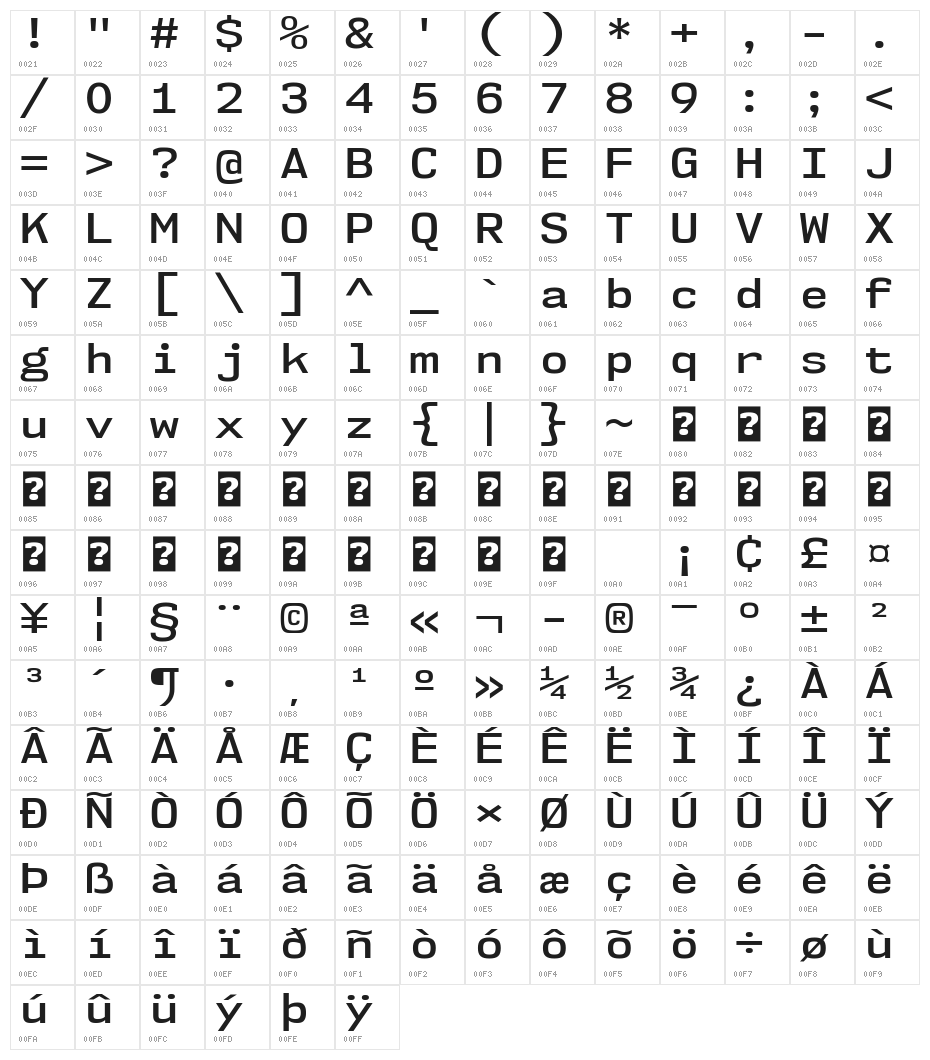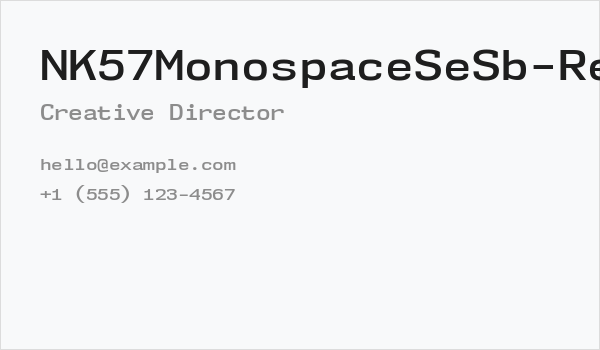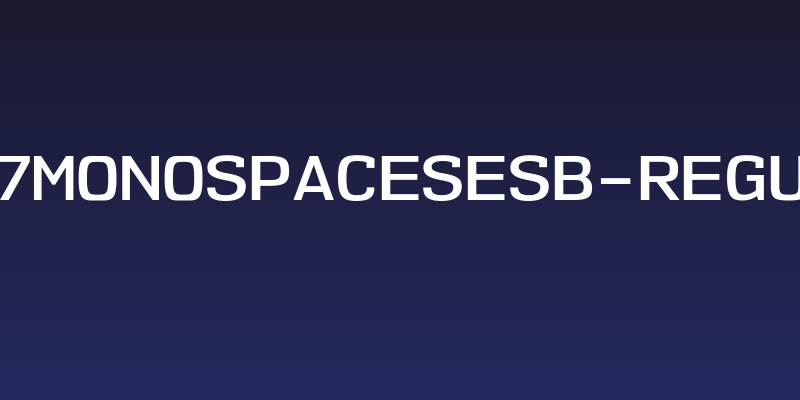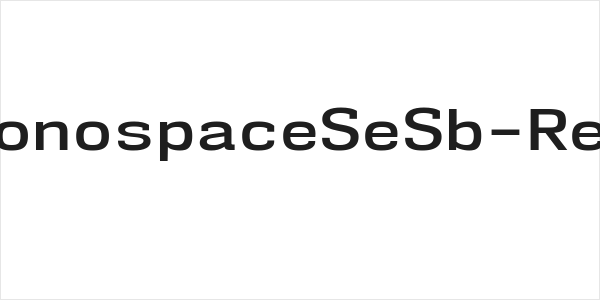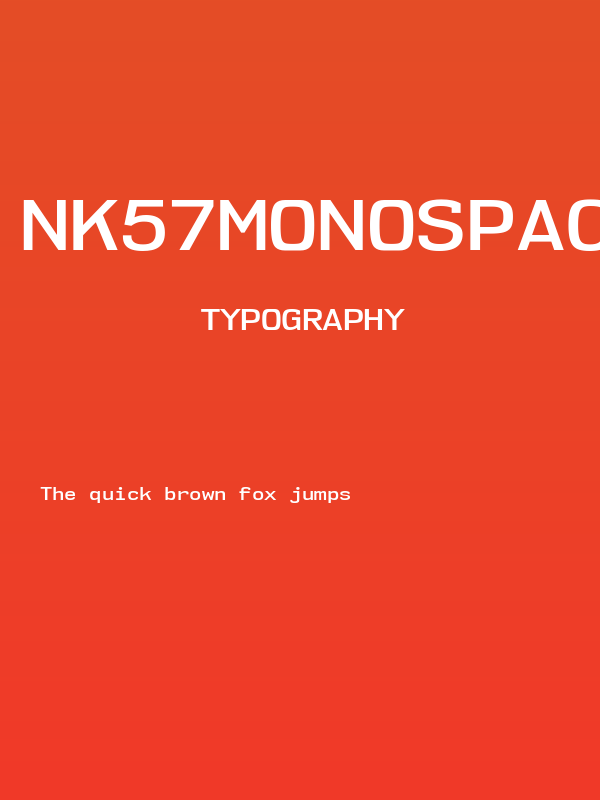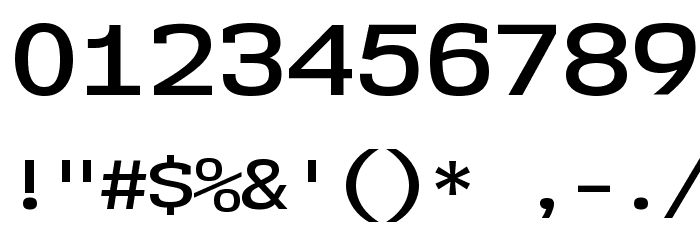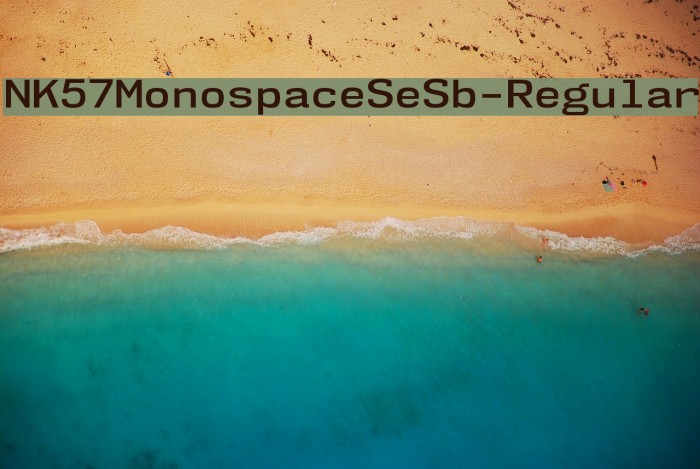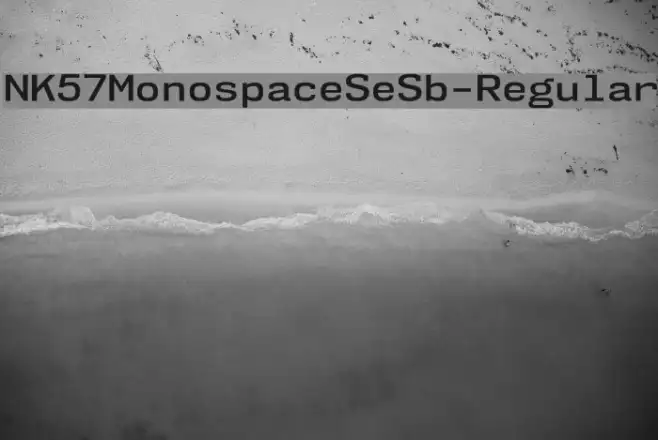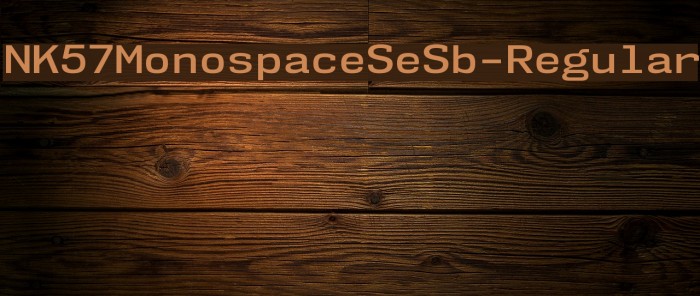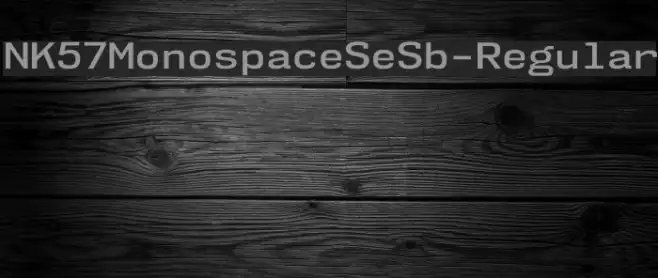
NK57MonospaceSeSb-Regular Font
NK57MonospaceSeSb-Regular Description
This typeface features a clean, structured design with uniform character width, embodying the essence of a monospaced font. Each letter and number is designed to occupy the same horizontal space, providing a balanced and orderly appearance. The strokes are consistent in weight, offering a medium contrast that enhances readability. The font's geometric shapes and straight lines give it a modern and technical feel, making it suitable for coding and technical documentation. Its simplicity and clarity make it versatile for various applications, from digital interfaces to printed materials.
| Use Case | Coding, Technical documentation, Digital interfaces |
| Proposed Projects | Ideal for coding, technical documentation, digital interfaces, and any project requiring precise alignment. |